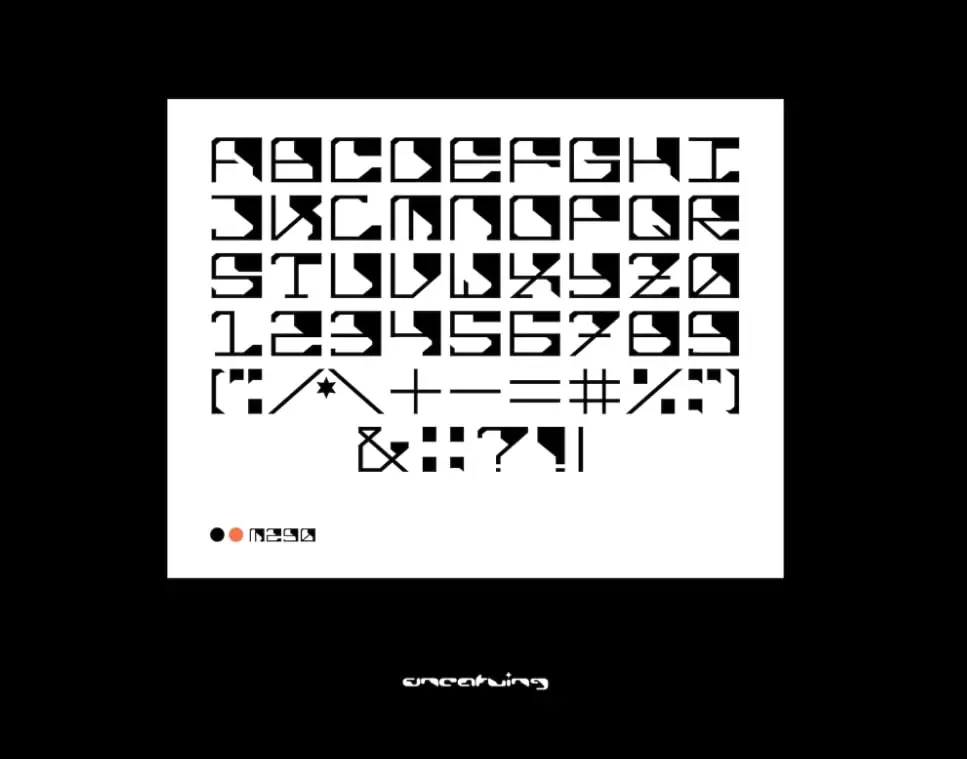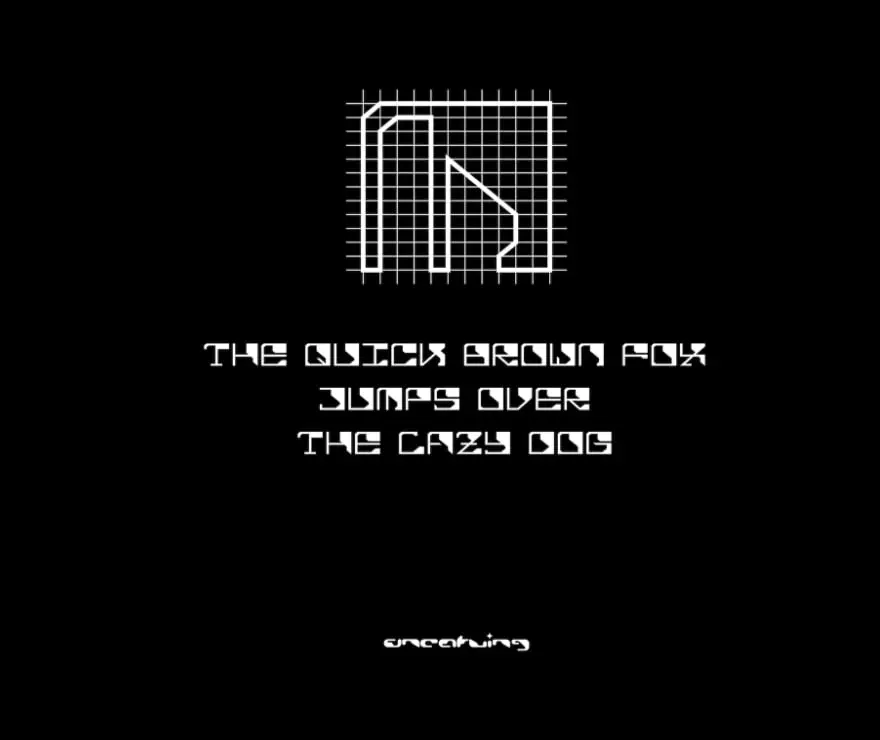
M290-Free Futuristic Display Font
The M290-Free Futuristic Display Font offers a unique and modern aesthetic, perfect for a variety of creative projects. With its bold lines and geometric shapes, this font is designed to capture attention and convey a sense of innovation.
• Stylish futuristic design
• Uppercase and lowercase letters included
• Supports a wide range of languages
• Weight: Regular, Bold
• Great for web design and user interfaces
• Perfect for print projects such as posters and flyers